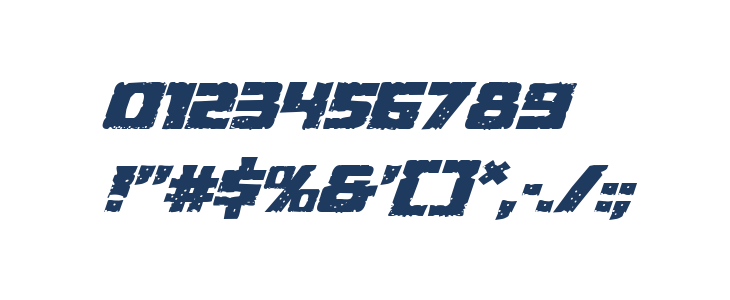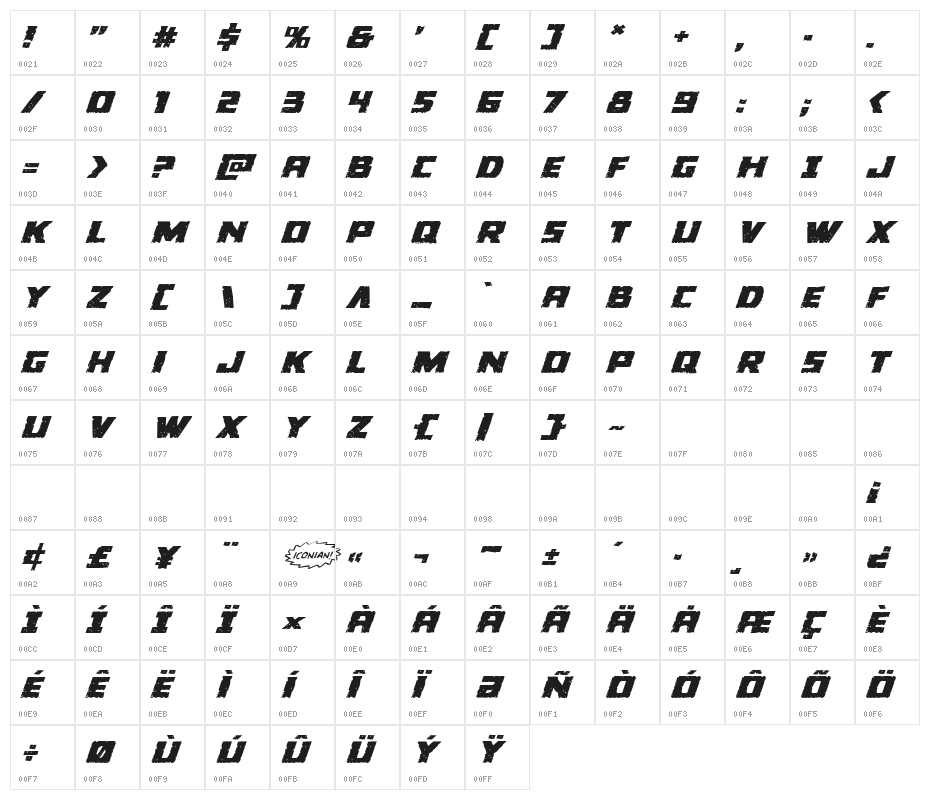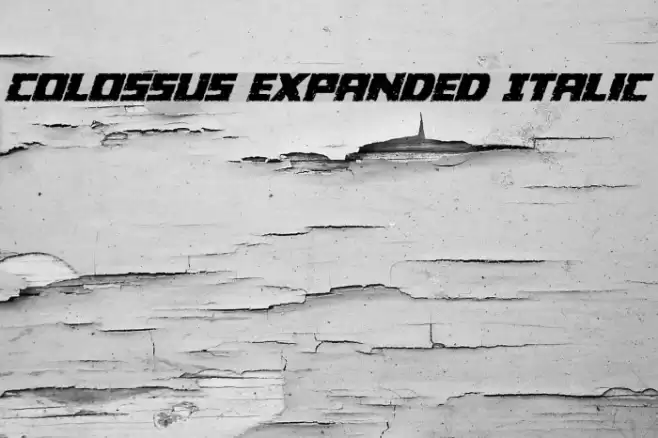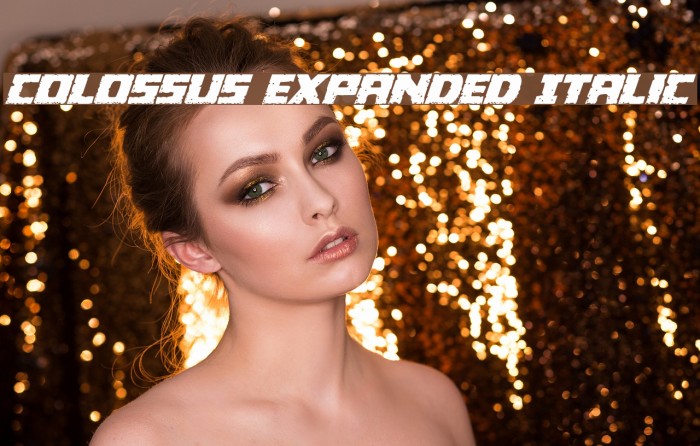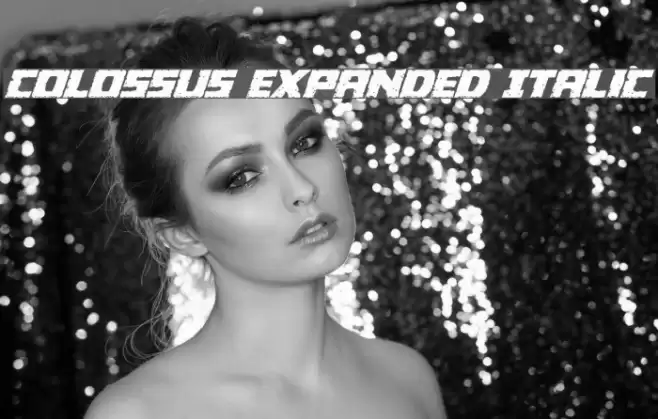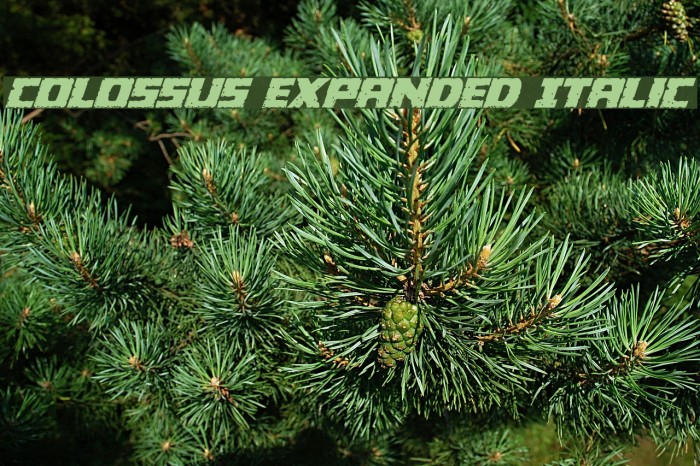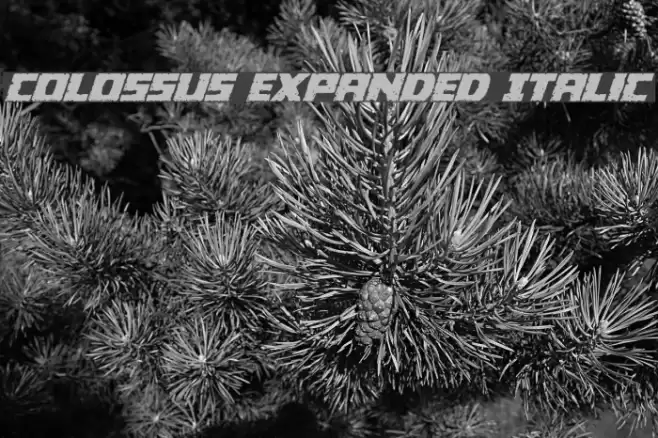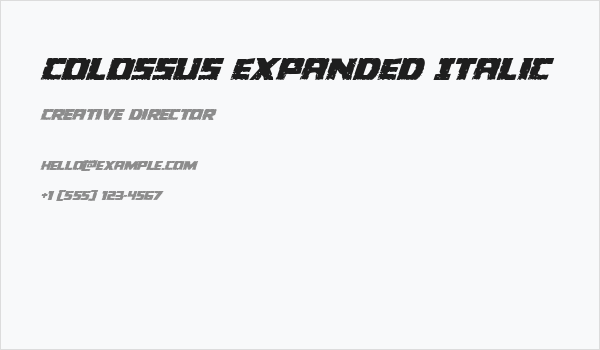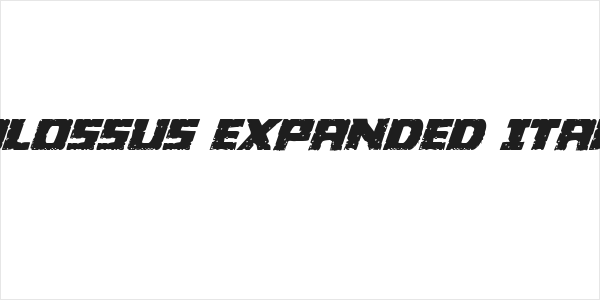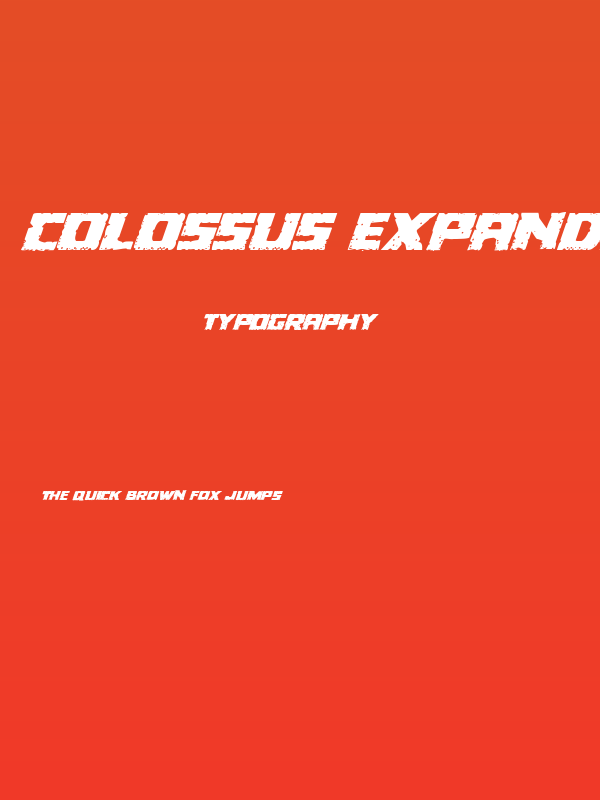
Colossus Expanded Italic Font
Colossus Expanded Italic Description
This font features a bold, italicized style with a rugged, textured appearance. The characters are expanded, giving them a wide stance that commands attention. The texture adds a distressed, almost grunge-like effect, making it ideal for projects that require a strong, impactful visual presence. The uppercase letters are particularly striking, with sharp angles and a dynamic slant that suggests movement and energy. The numbers and special characters maintain this bold, textured style, ensuring consistency across all elements.